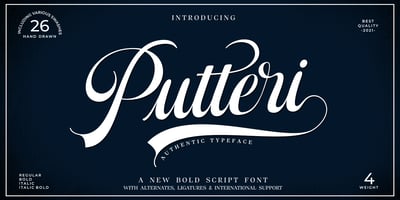
Putteri Script
Putteri Script font
Putteri Script Font Family was designed by Rinaldi Novianda and published by Alpha Bento. Putteri Script contains 5 styles and family package options. Putteri Script This type is a soft typefaces. bold, elegant & fun vintage script font. Can be used for various purposes.such as logos, wedding invitation, t-shirt, letterhead, signage, news, posters, badges etc.Putteri Script Font features alternate characters, ligatures, swash and multiple language support.To enable the OpenType Stylistic alternates, you need a program that supports OpenType features such as Adobe Illustrator CS, Adobe Indesign & CorelDraw X6-X7.How to get access alternate glyphs from open type fonts:- http://youtu.be/iptSFA7feQ0There are additional ways to access alternates/swashes, using Character Map (Windows), Nexus Font (Windows), Font Book (Mac) or a software program such as PopChar (for Windows and Mac).How to access all alternative characters, using Windows Character Map with Photoshop:- https://www.youtube.com/watch?v=Go9vacoYmBw Thank you,Alpha Bento